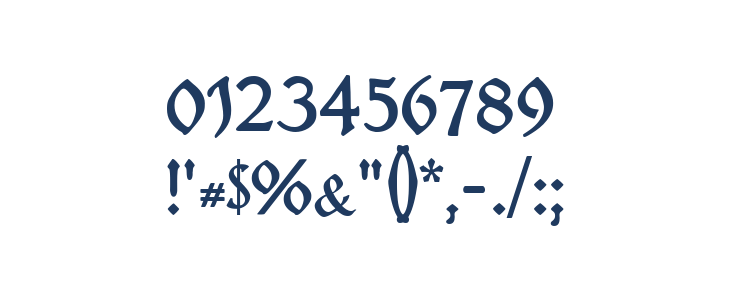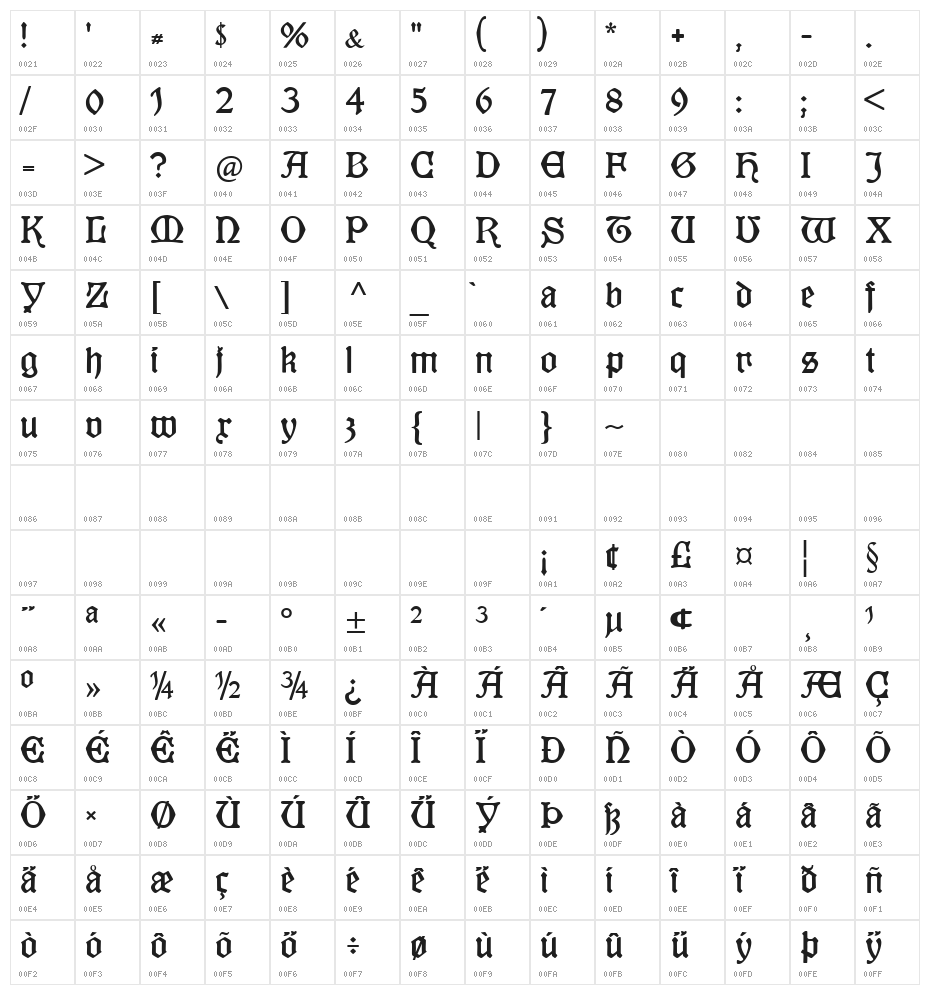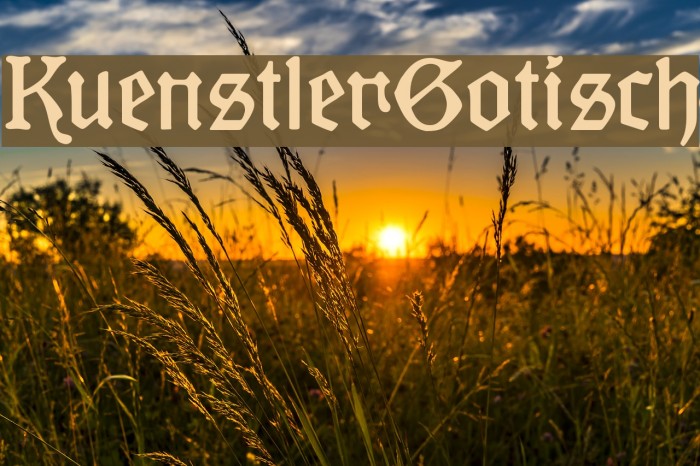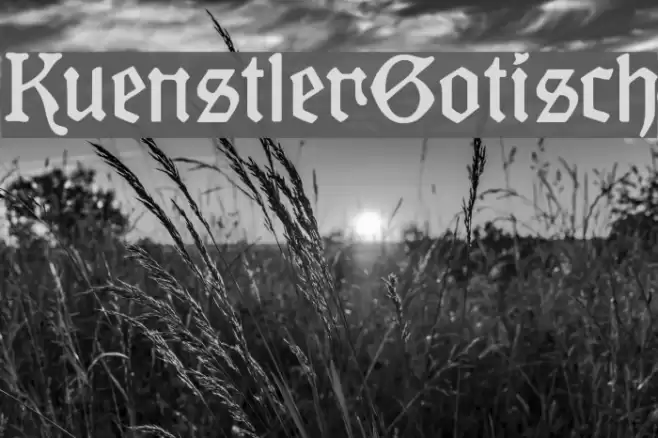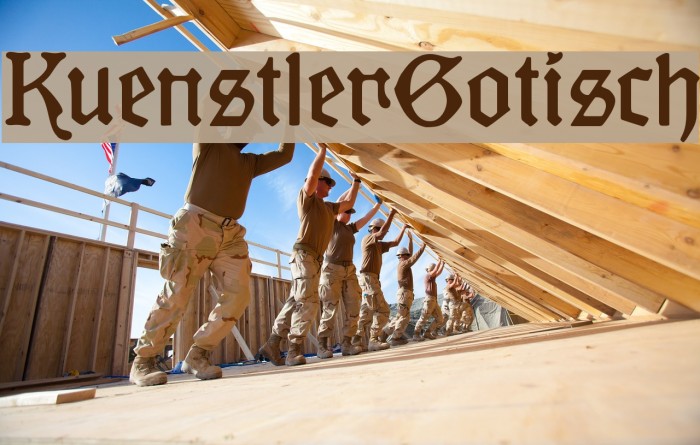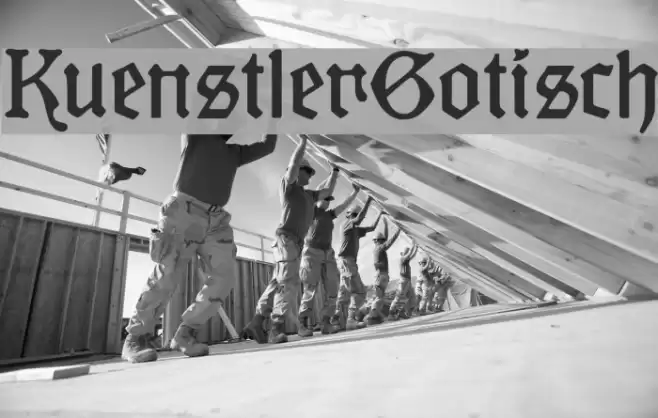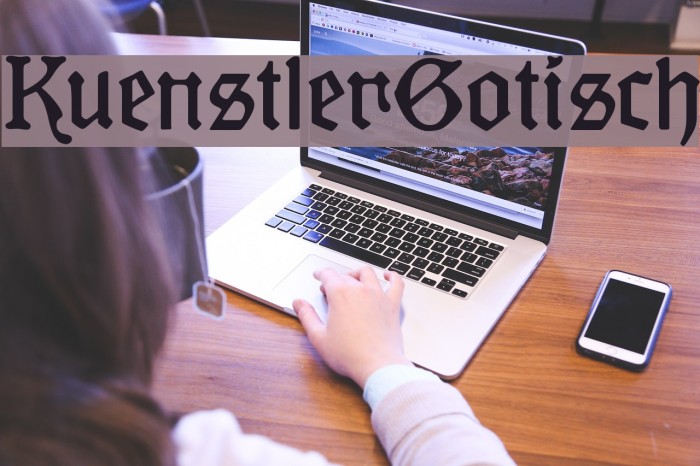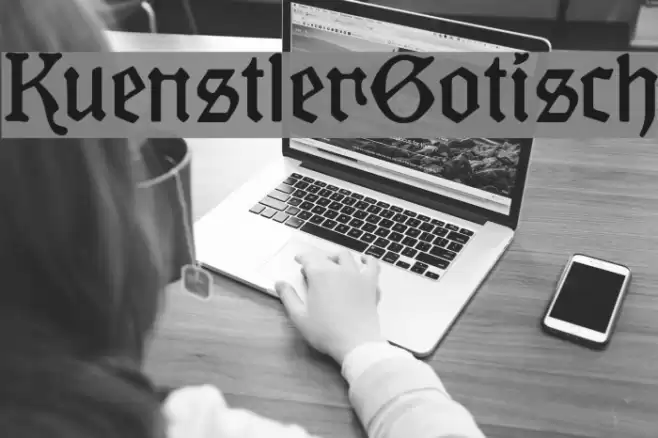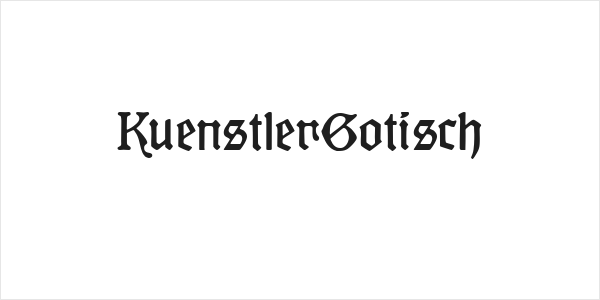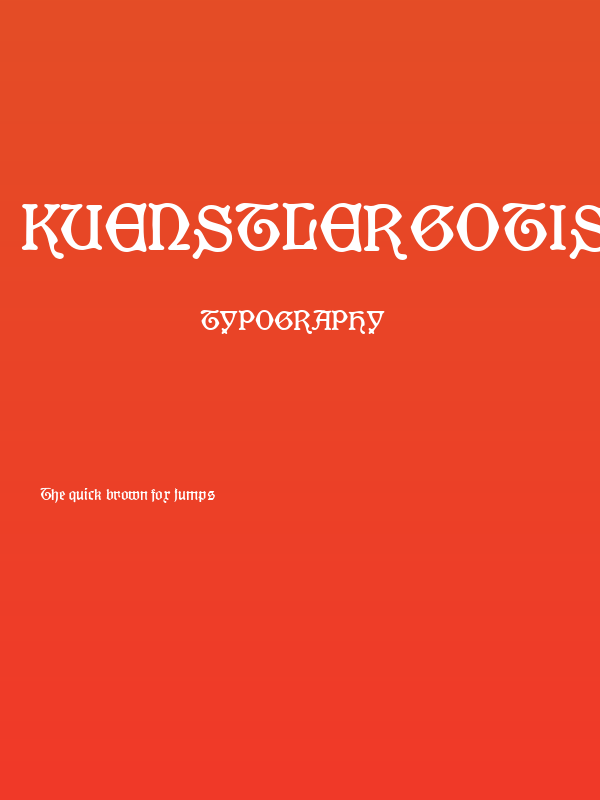
KuenstlerGotisch Font
KuenstlerGotisch Description
This font exudes a classic and historical feel, reminiscent of traditional Gothic script. The characters are ornate with intricate details, featuring sharp angles and a bold presence. The uppercase letters are particularly striking, with elaborate flourishes that give them a majestic appearance. The lowercase letters maintain a consistent style, complementing the uppercase with their own unique curves and edges. Numbers and special characters are equally stylized, ensuring a cohesive look across all glyphs. This font is perfect for projects that require a touch of elegance and historical depth, such as invitations, certificates, or branding for luxury products.